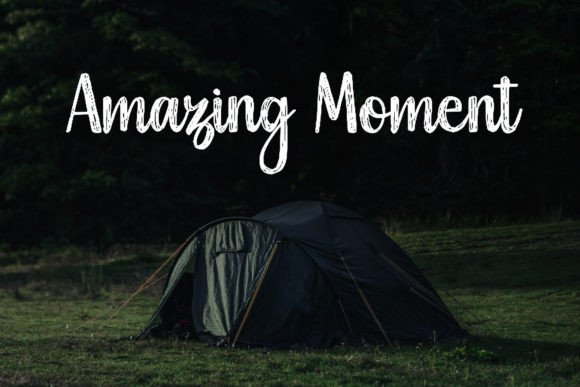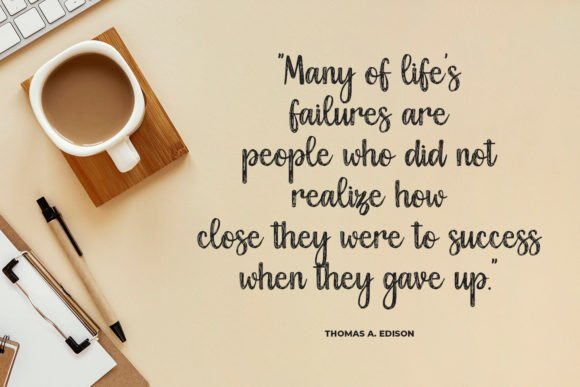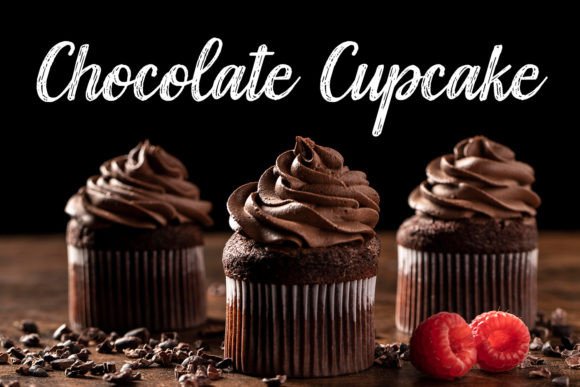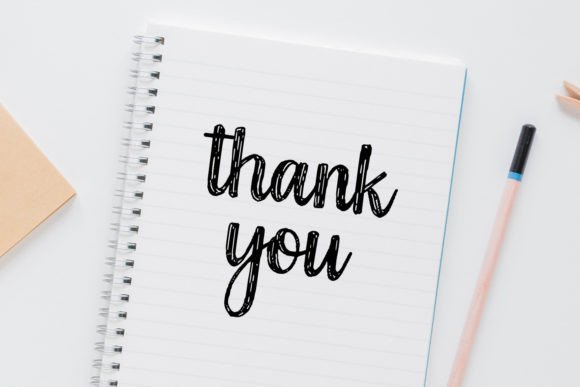
Introduction to Sketched Font
Sketched– casual pen-sketch font – Sketched is a beautiful pen-sketched script font.
It is great for t-shirt designs, quotes, mugs, tote bag designs, cards, banners, social media, and other craft projects that need a cute but simple touch .
Key Features of Sketched Font
Why Choose Sketched Font?
Sketched Font offers exceptional quality and versatility, making it a valuable addition to your design toolkit. Whether you’re creating for personal projects or commercial use, Sketched Font delivers professional results.